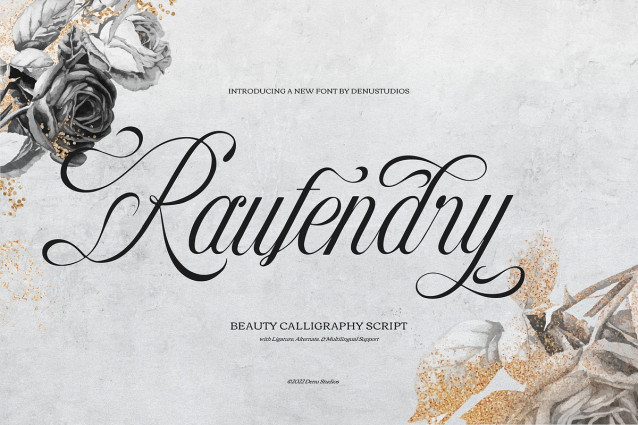
Raufendry Script Font
Raufendry Script Font | Beauty Callighraphy Script, from Denustudios, suitable for any projects such as: logos, branding projects, homeware designs, product packaging, mugs, quotes, posters, shopping bags, t-shirts, book covers, name card, invitation cards, greeting cards, label, photography, watermark, special events, and all your other lovely projects that need a Script taste.